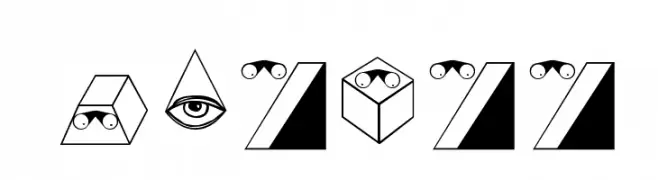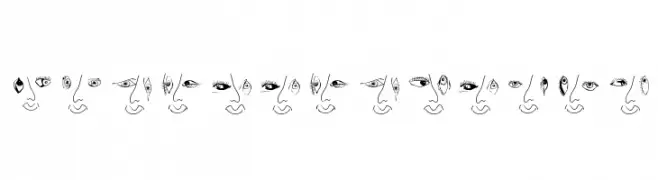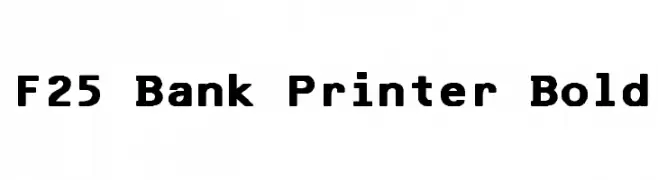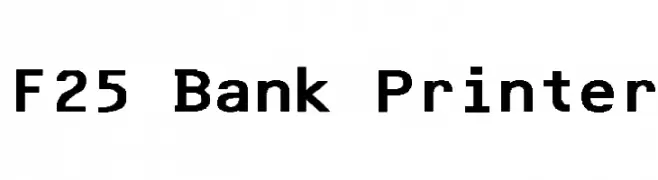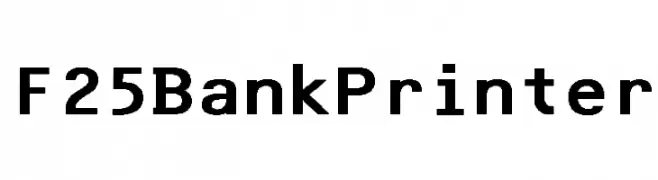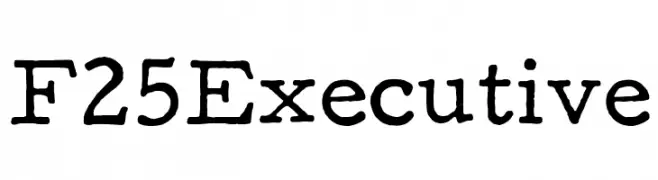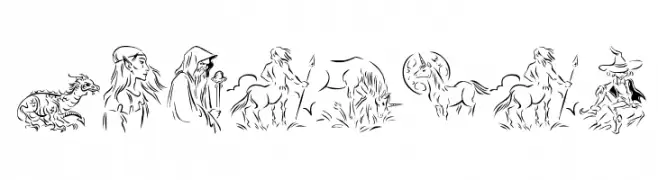
• EyesAugenMouth
A decorative font featuring artistic eye and mouth motifs.
• EyeSee
A creative display font featuring geometric shapes and eye motifs.
• EyesNoseMouth
Hand-drawn facial feature font with a whimsical, artistic style.
• F25 Bank Printer
• F25 Bank Printer Bold
• F25BankPrinter
A bold, monospaced font with a typewriter-like aesthetic.
• F25BankPrinter-Bold
A bold, monospaced font with uniform strokes and clear readability.
• F25Executive
A classic slab serif font with bold serifs and uniform strokes, offering a vintage appeal.
• fabianestem Normal
• Fabulous
Ornate fantasy-themed pictorial font with mythical creatures.